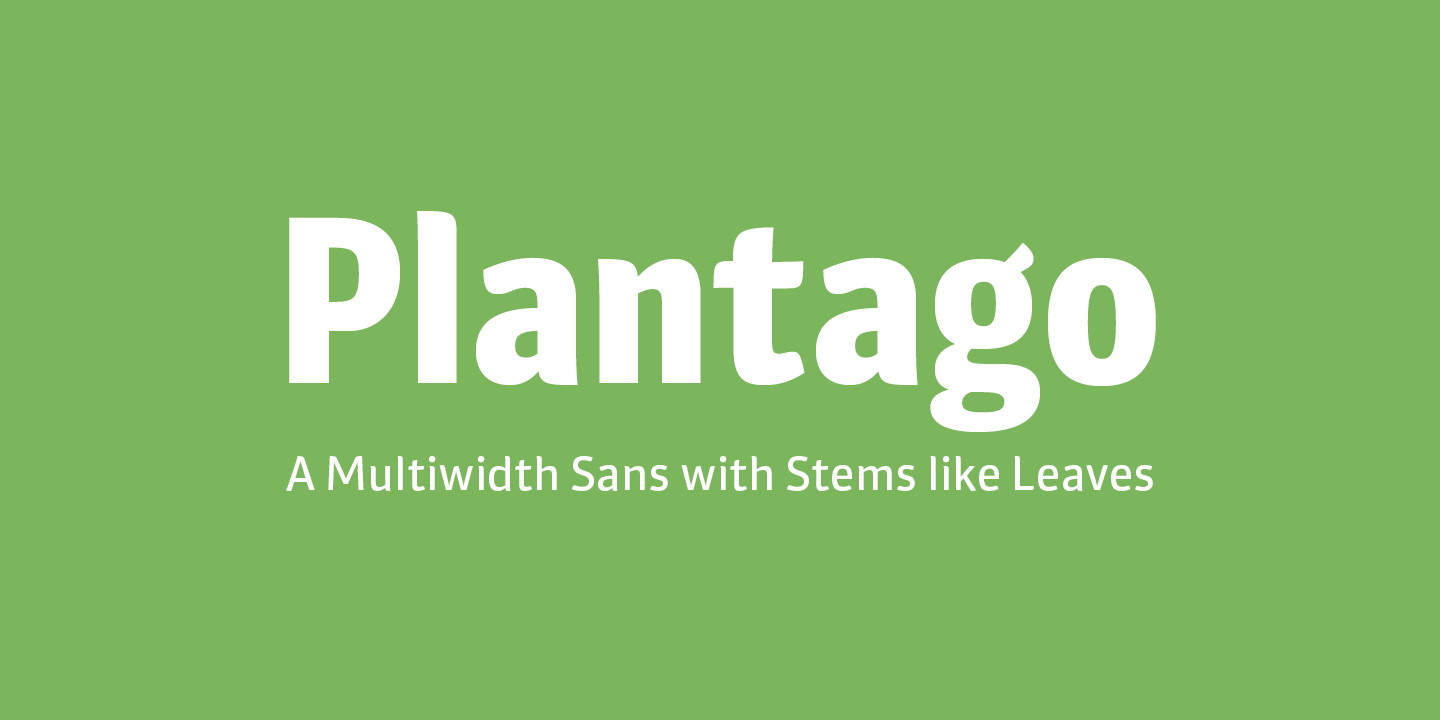
Plantago Font is ideal for organic product packaging, botanical garden signage, natural health branding, eco-friendly corporate identities, sustainable lifestyle marketing, wellness spa communications, environmental organization materials, herbal medicine labeling, nature photography exhibitions, and green technology campaigns. This distinctive typeface excels in projects that celebrate natural beauty and environmental consciousness with authentic organic character.
What makes Plantago Font exciting is its unique ability to capture the essence of natural growth patterns through carefully crafted letterforms that mirror the organic beauty found in plant life. The font features flowing, botanical-inspired characteristics with subtle variations that evoke the spontaneous elegance of nature while maintaining excellent readability. This organic approach makes it perfect for brands seeking to communicate sustainability, wellness, and authentic connection to the natural world.
Plantago Font family includes Light, Regular, Medium, Bold, Condensed, Extended, and Organic variants. Each style maintains the font's distinctive botanical character while offering different levels of natural expression, enabling designers to create authentic eco-friendly compositions that reflect environmental values and organic aesthetics.
The Plantago Font Free Download provides designers with access to a premium nature-inspired typeface that embodies the spirit of environmental consciousness and natural harmony. This font's organic qualities and sustainable aesthetic make it particularly valuable for eco-friendly businesses, wellness brands, and organizations seeking to establish genuine connections with environmentally conscious audiences.
Creative professionals appreciate the font's ability to instantly communicate sustainability, health, and natural authenticity. The letterforms' botanical characteristics and organic flow create emotional connections that standard commercial fonts cannot achieve, making it essential for projects requiring distinctive environmental personality and natural appeal.
When working with Plantago Font, designers can create compelling visual narratives that resonate with eco-conscious consumers and wellness enthusiasts. The font's natural character makes it especially effective for brands in organic products, sustainable services, health and wellness, and environmental advocacy where authentic green credentials are crucial for market credibility.
For digital applications, Plantago Font maintains its distinctive natural qualities across different platforms while ensuring readability in modern contexts. Its optimized character spacing preserves the organic flow essential for authentic botanical appeal.
Design agencies consistently select Plantago Font for projects requiring genuine environmental appeal and natural authenticity, where conventional typography cannot capture the desired connection to nature and sustainable values that define contemporary eco-conscious culture.